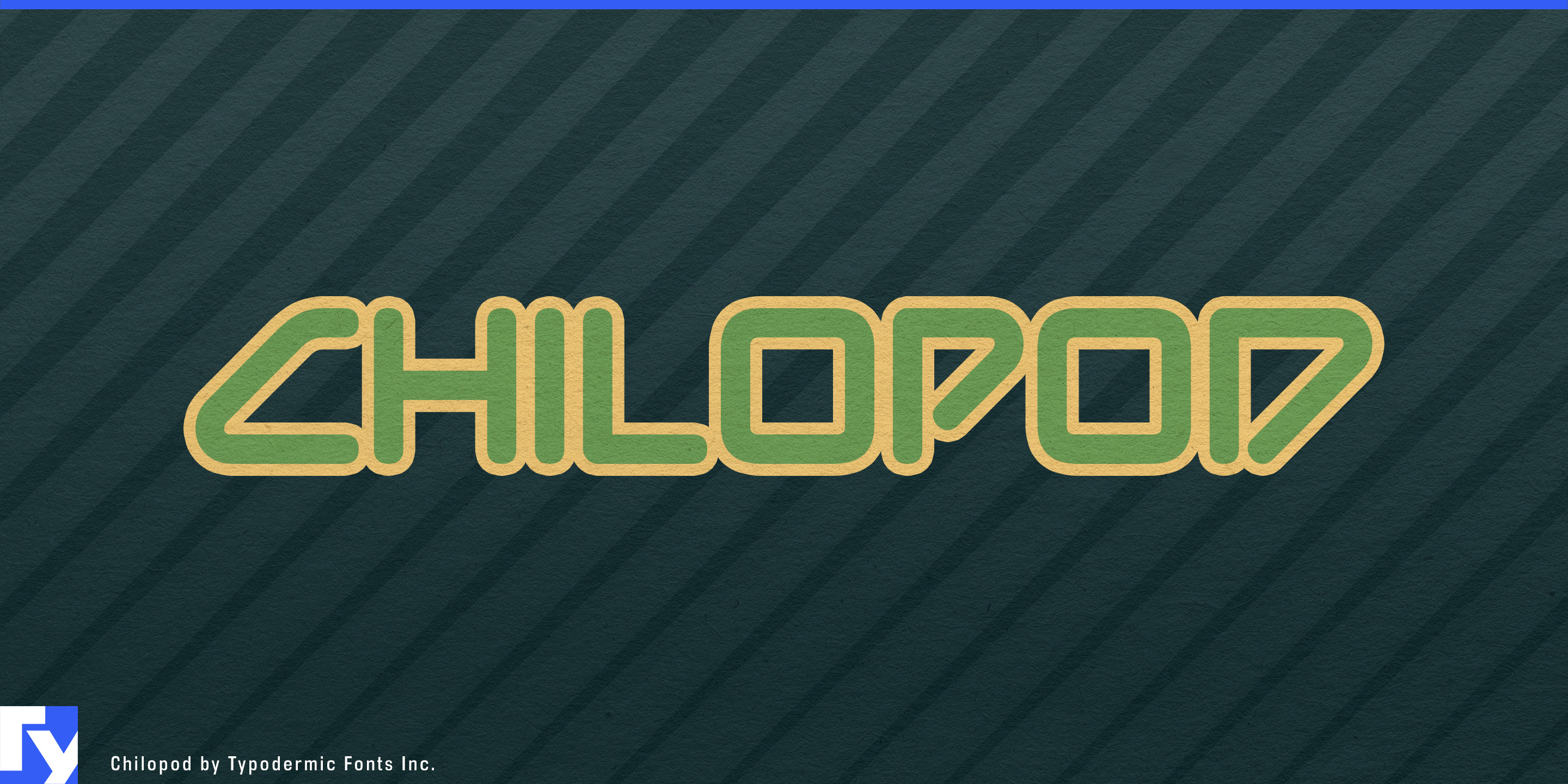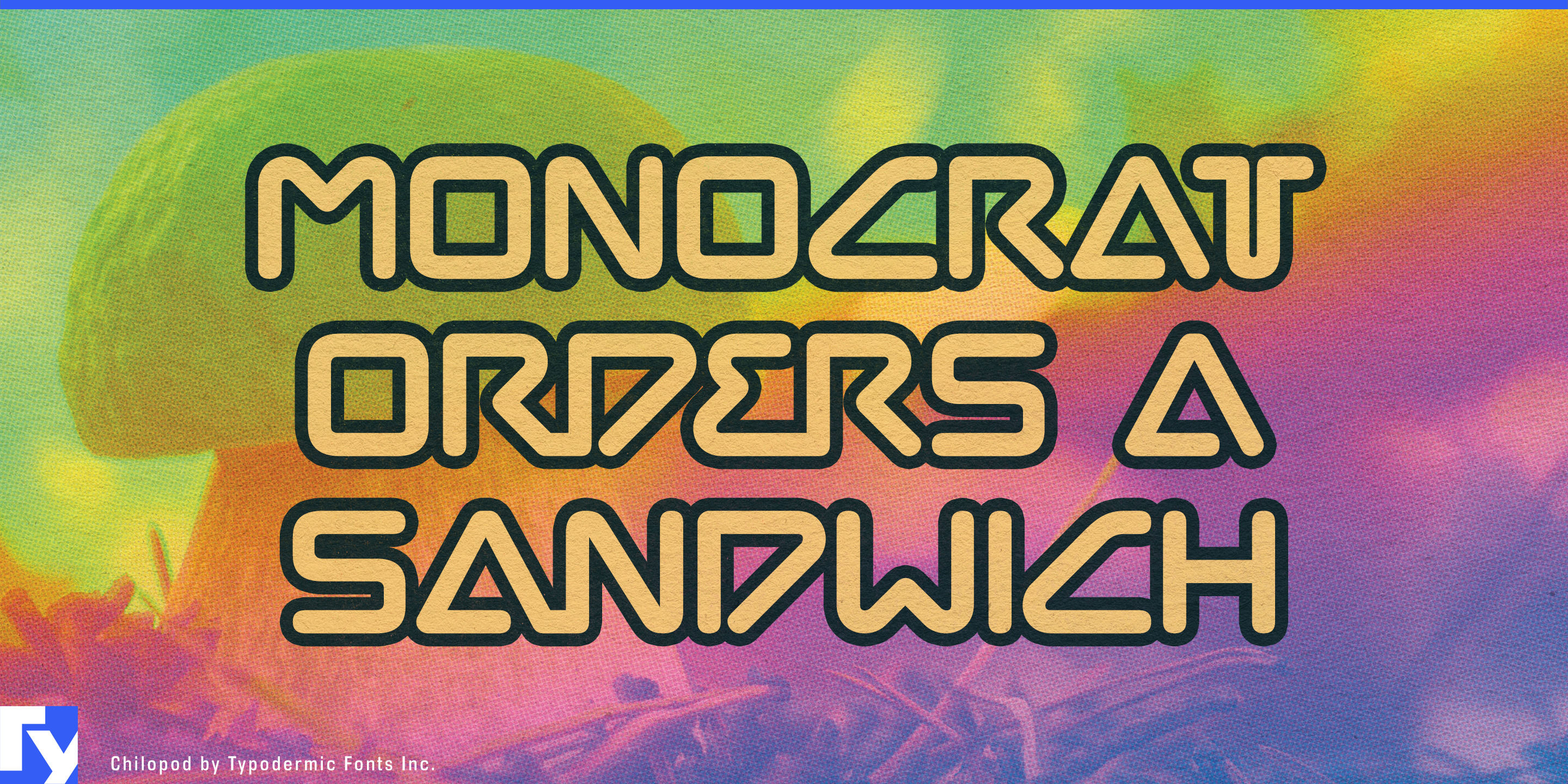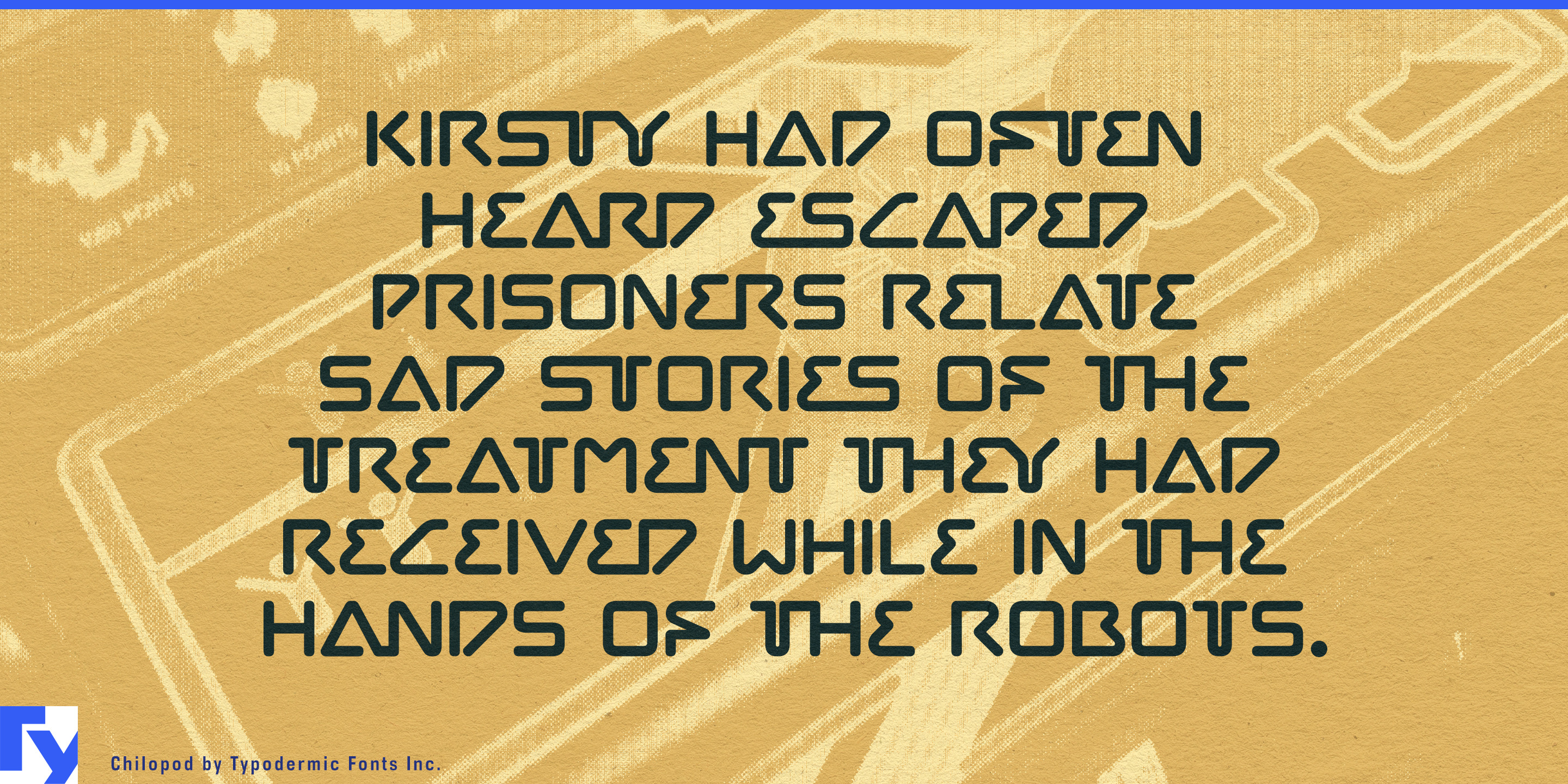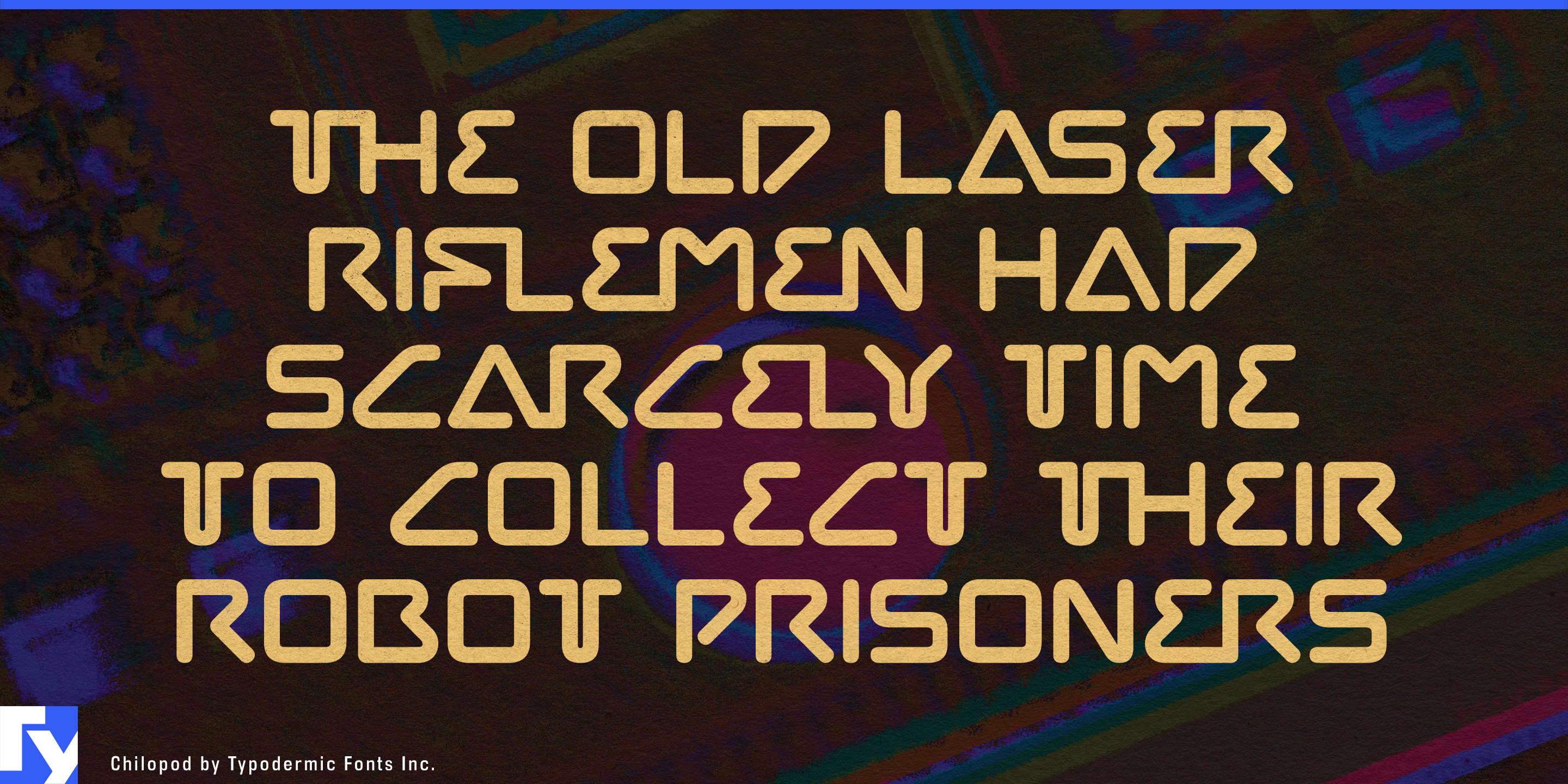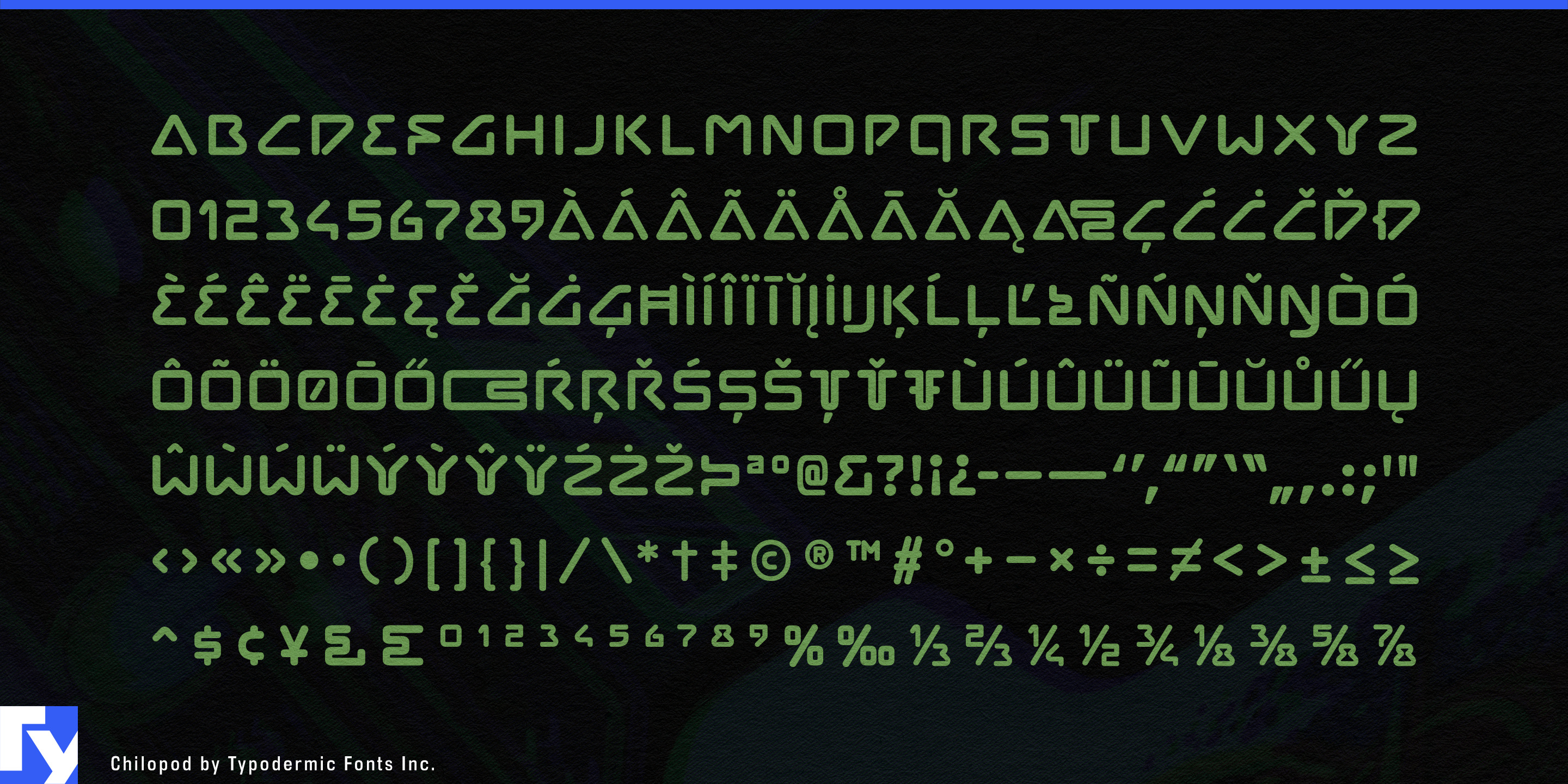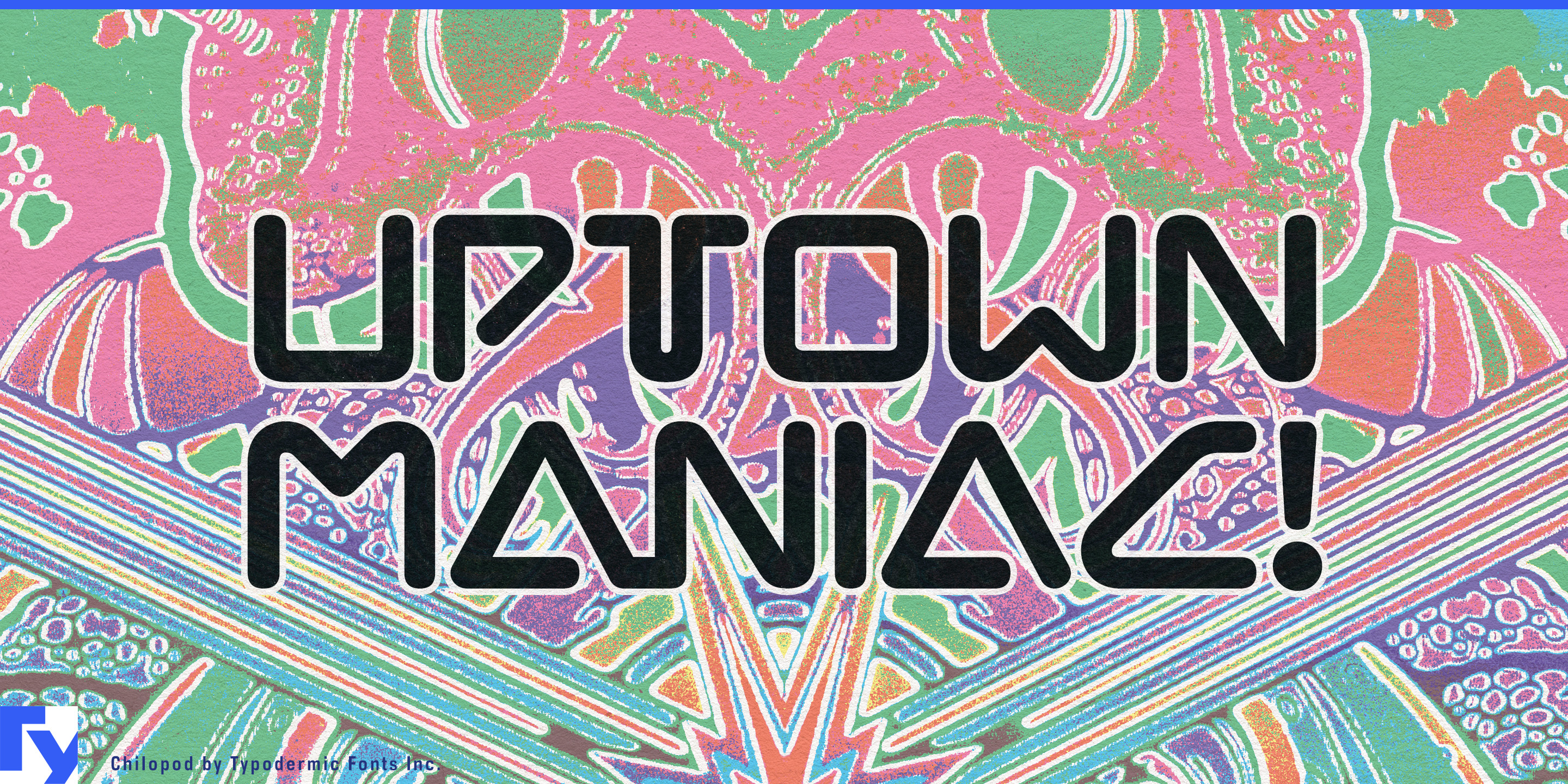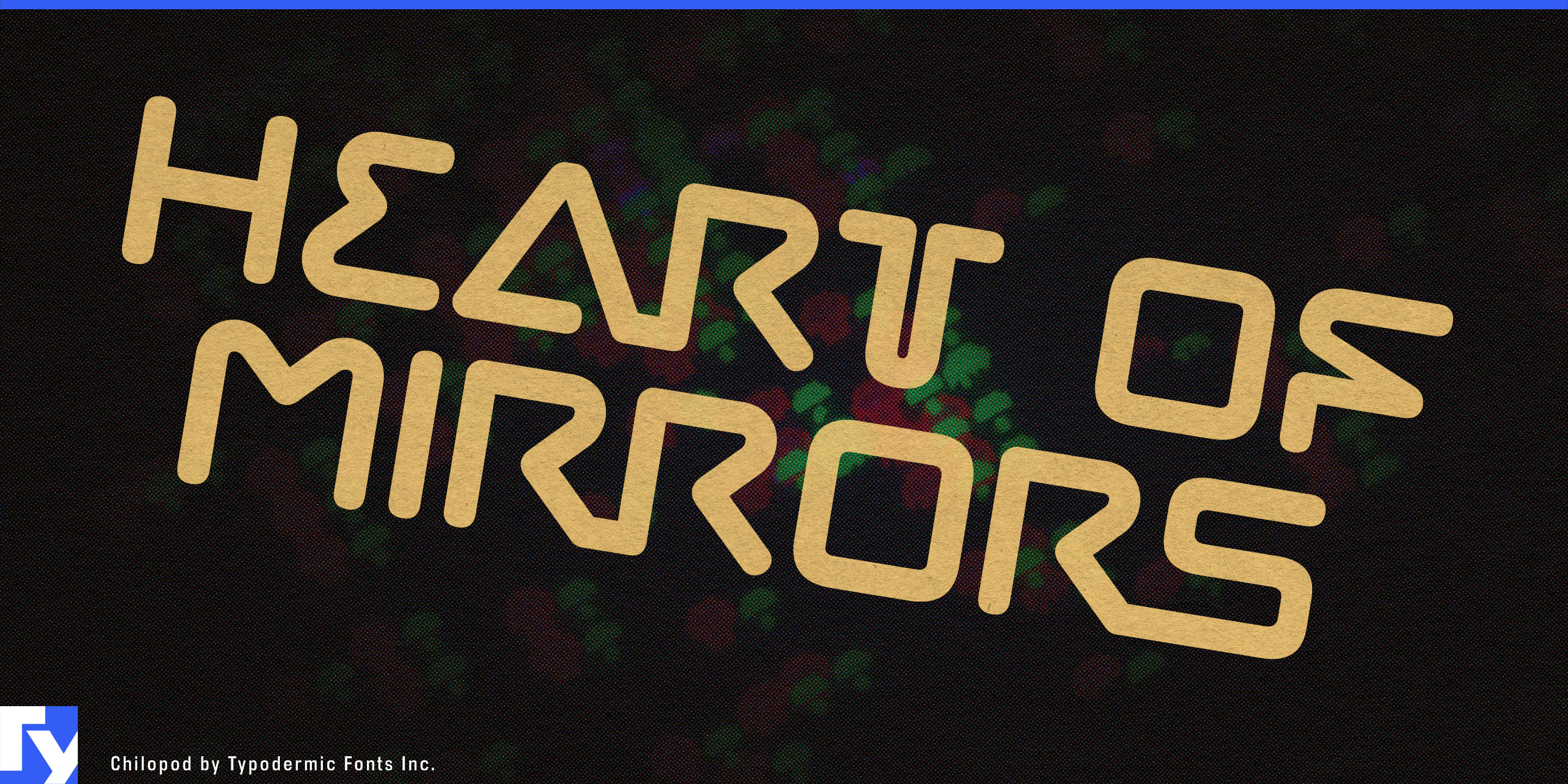
Chilopod is connected worm script typeface. The design was inspired by the cabinet art for the 1980 Atari game, Centipede. Chilopod features OpenType ligatures which automatically join common letter combinations to create continuous lines.